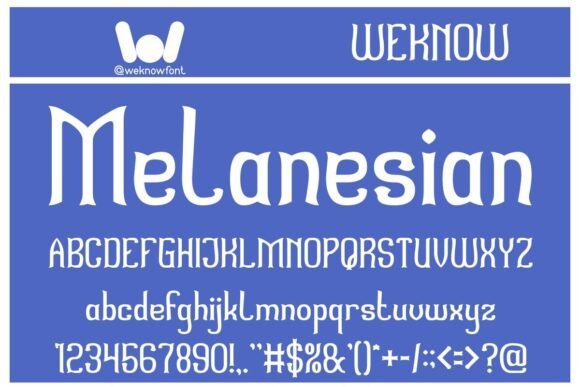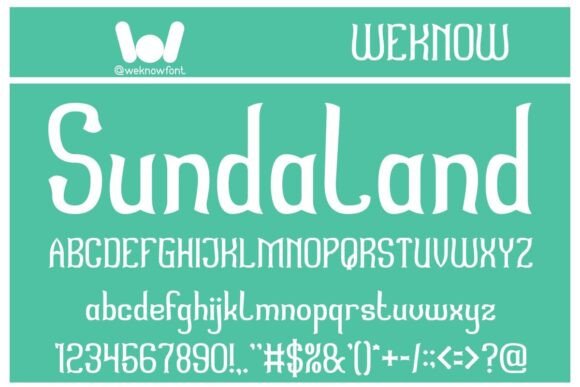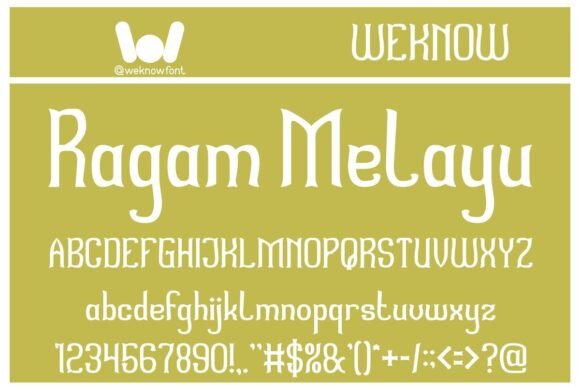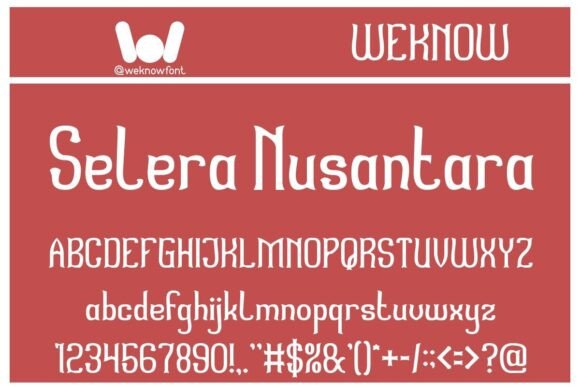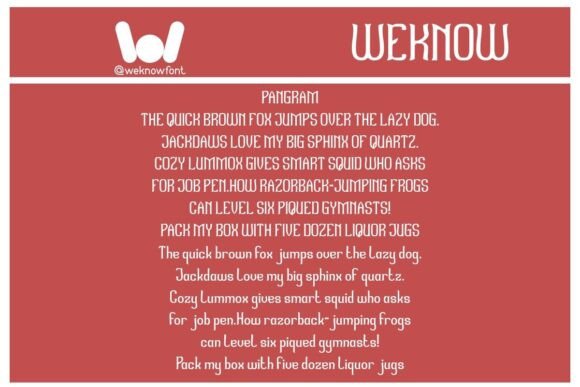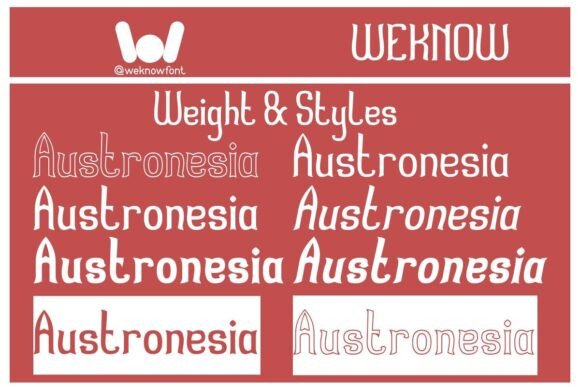
Unleashing the Quirky Charm of Typography
As designers, we’ve all had those moments of inspiration where the perfect font seems to magically appear, elevating our entire creative vision. For me, it was the discovery of a beautifully crafted serif font that transported me to a bygone era of classic charm and whimsy.
Enter the Austronesia Font, a stunning display font that embodies the essence of playful artistic flair. Perfectly suited for adding a touch of period charm to corporate and brand identities, this retro aesthetic font is a game-changer for designers looking to create standout headers, logos, and logotypes.
With its unique blend of classic quirkiness and modern appeal, the Austronesia Font is an invaluable addition to any designer’s toolkit. Whether you’re working on a fashion brand, a music label, or a comic book series, this font is sure to bring your designs to life.
Austronesia Font Key Features
- Font Family: Austronesia Font is a sans-serif font family designed to represent the Austronesian languages and cultures.
- Character Set: Supports a wide range of characters, including Latin, Greek, and various Austronesian scripts, making it suitable for multilingual applications.
- Unique Characteristics: Features a unique blend of modern and traditional design elements, reflecting the rich cultural heritage of the Austronesian people.
Austronesia Font Review
I recently had the chance to work with the Austronesia Font, and I must say it’s an intriguing addition to any design project. ✨ One of its strongest points is its unique blend of traditional and modern elements, making it a great choice for designers looking to add a touch of cultural flair to their work. The font’s clean lines and subtle nuances in letterform design make it easy on the eyes and perfect for body text.
However, I did encounter a few limitations while using the font. ⚠️ For one, it may not be the best choice for headings or titles, as its subtlety can make it difficult to read at larger sizes. Additionally, some characters may require additional styling to ensure proper display on various devices.
Overall, I’d say Austronesia Font is a solid choice for designers looking to add some cultural flair to their work. While it may have its limitations, it’s a versatile and stylish option that’s definitely worth considering.
The Austronesia Font is commonly used for creating travel brochures, marketing materials, and cultural publications. It’s also great for creating a tropical or exotic feel in your designs.